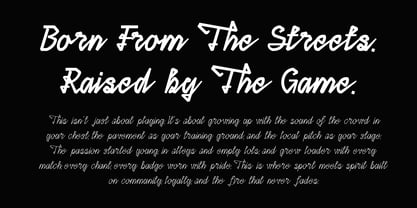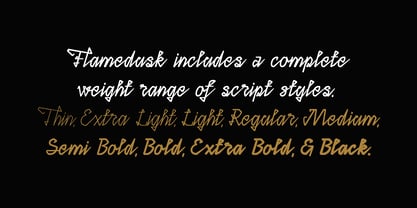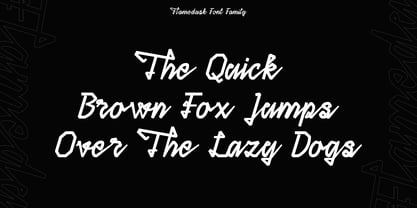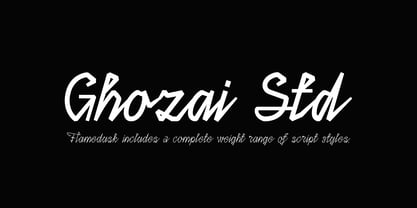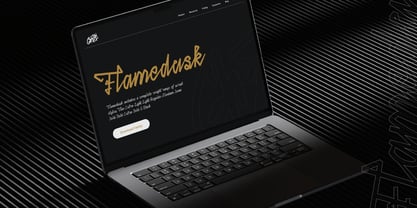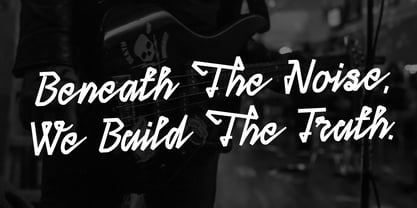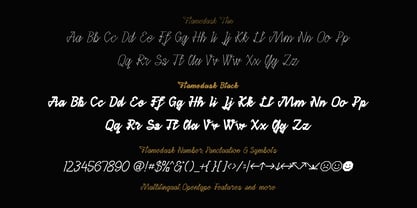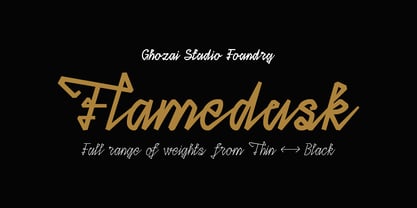
Flamedusk
by Ghozai Studio
The Flamedusk Font Family was designed by Manzur Ghozaali and published by Ghozai Studio. Flamedusk contains 9 styles and family package options. More about this family
Flamedusk is a script font family featuring 9 weights, from Thin to Black, making it perfect for a variety of design needs. With a range of OpenType features and multilingual glyph support, it’s ideal for projects in multiple languages, ensuring global versatility. Whether you’re working on bold headlines, logo and branding, dynamic sports graphics, band posters, or clear signage, Flamedusk delivers the impact your designs need. Its clean, modern style and varied weights allow it to seamlessly transition from large, attention-grabbing titles to more subtle, refined text applications. Whether used in print or digital media, Flamedusk provides both legibility and style, offering endless possibilities for your creative projects.
Designers: Manzur Ghozaali
Foundry: Ghozai Studio